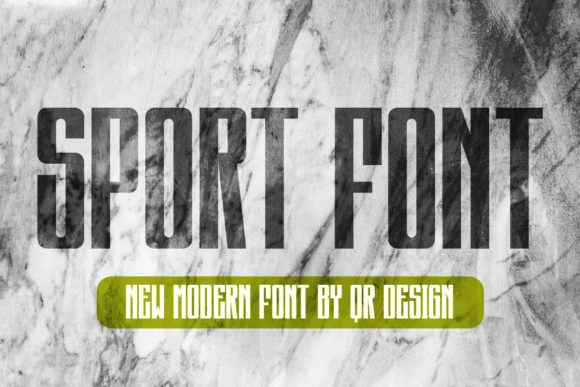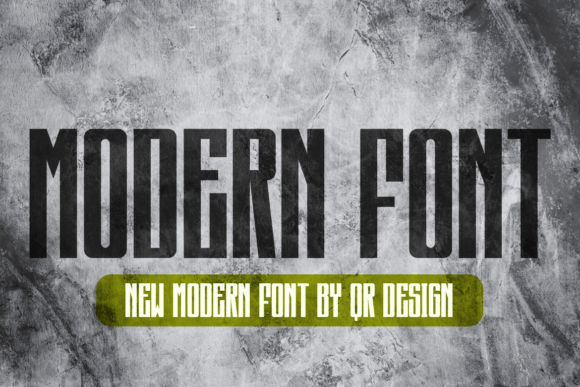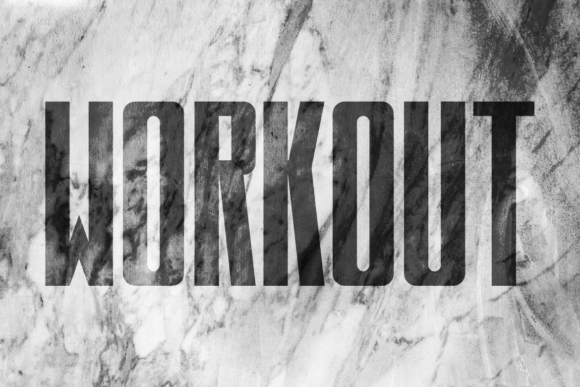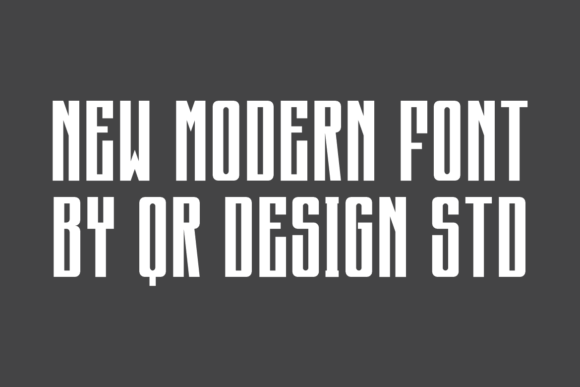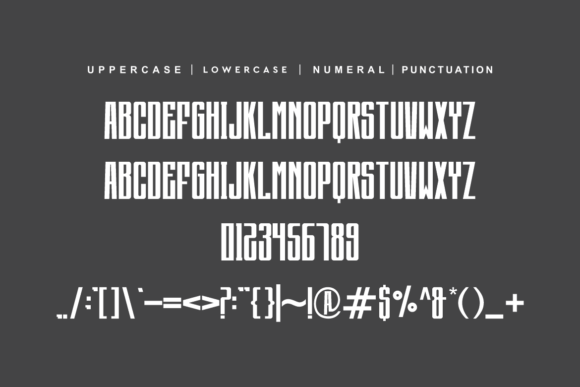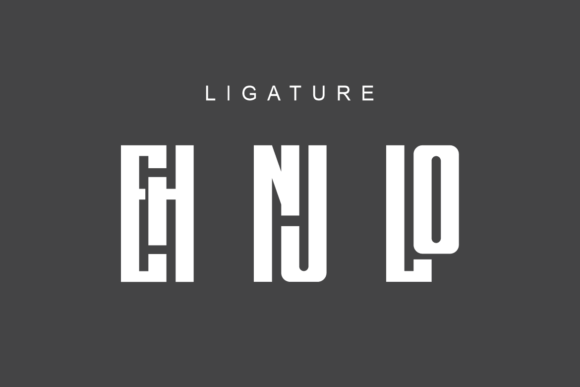
The Perfect Typography for Your Next Project: Behanjlok Font
Have you ever stared at a blank page, trying to find the perfect font to bring your creative vision to life? You know, that moment when everything seems to be missing, but you can’t quite put your finger on what’s missing? That’s where Behanjlok Font comes in – a game-changing, bold sans serif font that’s guaranteed to elevate your designs.
Designed to stand out in a wide range of contexts, Behanjlok Font is the perfect choice for any branding project, from logos and t-shirt printing to sports and lifestyle brands. Its tall lettering and modern aesthetic make it a versatile and valuable tool for designers looking to add a touch of authenticity to their work.
With Behanjlok Font, you can say goodbye to design woes and hello to a world of creative possibilities. Whether you’re a seasoned pro or just starting out, this font is sure to become your go-to choice for any project that demands a bold and eye-catching look.
Behanjlok Font Key Features
- Font Family: Behanjlok is a unique sans-serif font designed for modern and minimalist designs.
- Character Set: Supports a wide range of languages, including Latin, Cyrillic, and Greek scripts, making it suitable for global designs.
- Unique Characteristics: Behanjlok’s distinctive geometric shapes and clean lines make it perfect for modern branding, digital products, and editorial designs.
Behanjlok Font Review
First impressions of Behanjlok Font are great! The font has a unique blend of ✨ elegant curves and ✨ sharp edges, making it perfect for modern designs. The font family has a wide range of styles, including bold, light, and italic, which provides a lot of flexibility in terms of design applications.
One of the standout features of Behanjlok Font is its high legibility, making it suitable for body text as well as headings. The font also supports multiple languages, which is a big plus for designers working on international projects.
While Behanjlok Font is a solid choice for many design projects, there are a few areas where it falls short:
- ⚠️ Limited support for certain languages: While Behanjlok Font supports multiple languages, it may not support some of the more complex scripts or languages.
Overall, Behanjlok Font is a solid choice for designers looking for a modern, elegant font with high legibility. While it may have some limitations, it is a great addition to any design toolkit. I would definitely consider using it for future projects, especially for designs that require a touch of sophistication and elegance.
The Behanjlok font is ideal for creative projects that require a touch of elegance and sophistication. Use it for: